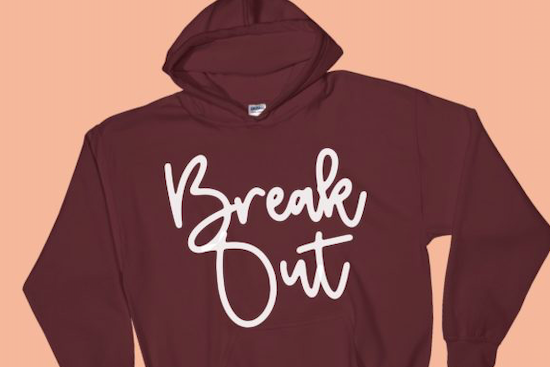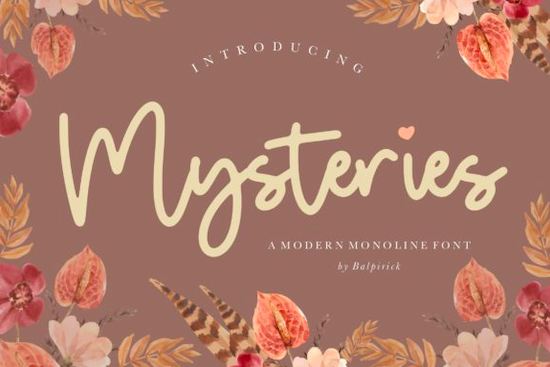
Introducing Mysteries Font. This is a modern whimsical and magical script typeface with a unique monoline handwritten style. This font will make your design come to more stand out a lot. Mysteries Font is equipped with punctuation, uppercase, and lowercase along with the numbers and multilanguage supports.
Introducing Mysteries Font is perfect for magazine, wedding, branding projects, social media, or product packaging, and other design purposes.
Mysteries Handwritten font